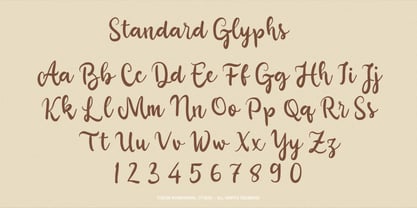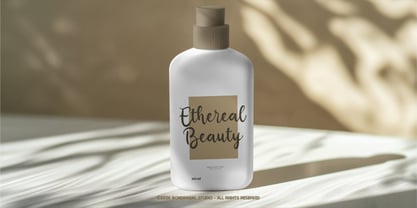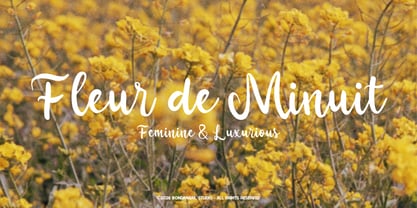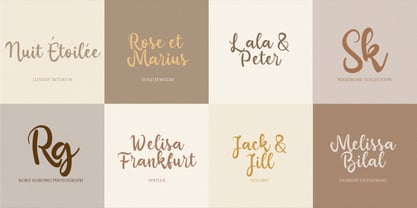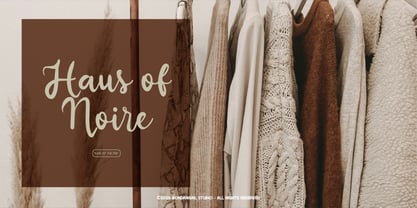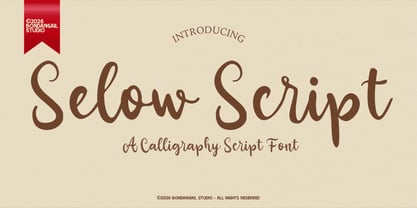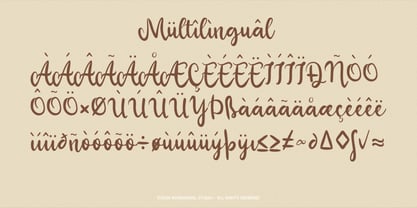
Selow
von BondanGail
Die Schriftfamilie Selow wurde von Wahyu Eka Prasetya, Bondan Gail Saputro entworfen und von BondanGail veröffentlicht. Selow enthält 1 Stile. Mehr über diese Familie
Selow Script is an elegant handwritten calligraphy font with smooth flowing curves and a natural brush-style feel. Designed with graceful strokes and stylish letter connections, this font is perfect for branding, wedding invitations, logos, packaging, social media, beauty products, and modern feminine designs.
Its clean readability and soft handwritten character create a warm, classy, and creative appearance that works beautifully for both display titles and stylish branding projects.
Designer: Wahyu Eka Prasetya, Bondan Gail Saputro
Foundry: BondanGail